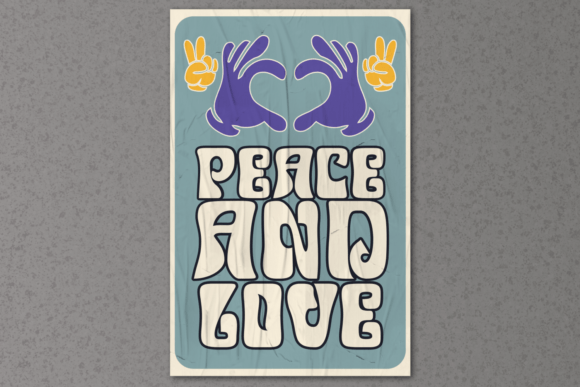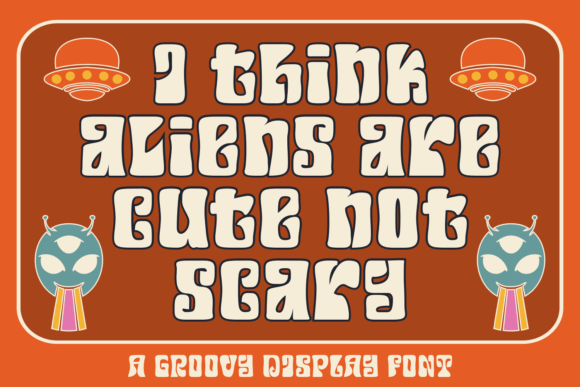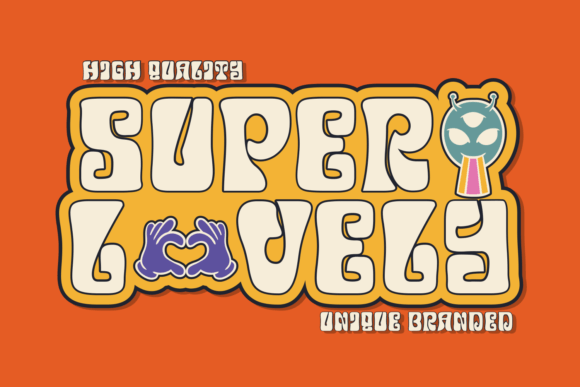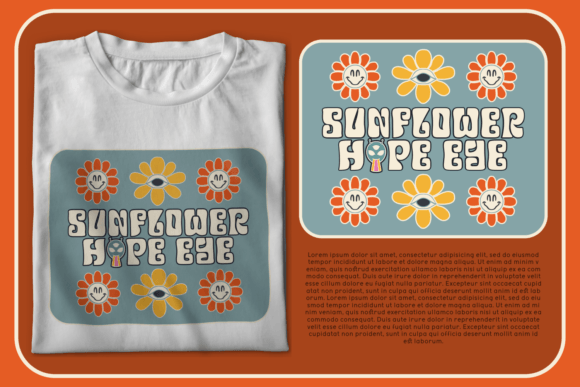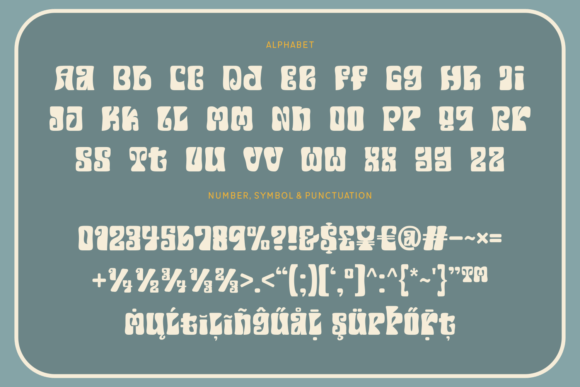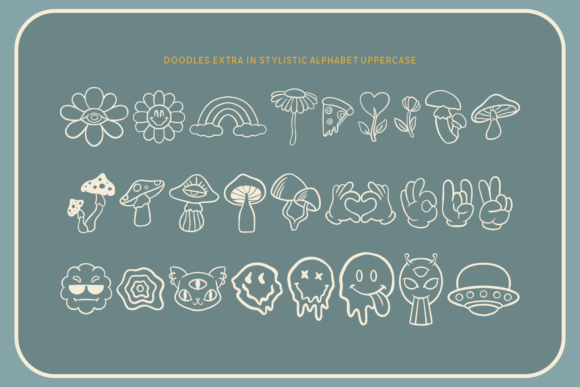
Introduction to Power Stagedelia Font Font
Fonts play a crucial role in design, and the Power Stagedelia Font font is a typeface that brings both character and versatility to any project. Whether you’re working on a branding project, a website, or a print design, the Power Stagedelia Font font offers a unique style that can elevate your work.
Power Stagedelia is a unique, retro display font.
With its psychedelic and incredibly cool vibe, this font is perfect for a wide pool of design ideas that require a groovy, 70’s accent .
Key Features of Power Stagedelia Font Font
Why Choose Power Stagedelia Font Font?
The Power Stagedelia Font font is more than just a typeface – it’s a design tool that helps you communicate your message with style and clarity. Its unique character set and versatile design make it suitable for a wide range of applications, from elegant invitations to bold headlines.
With its carefully crafted letterforms and balanced proportions, the Power Stagedelia Font font ensures readability and visual appeal across all mediums.
What makes Power Stagedelia Font font special?
The Power Stagedelia Font font stands out with its unique design, exceptional readability, and versatility across various design applications.